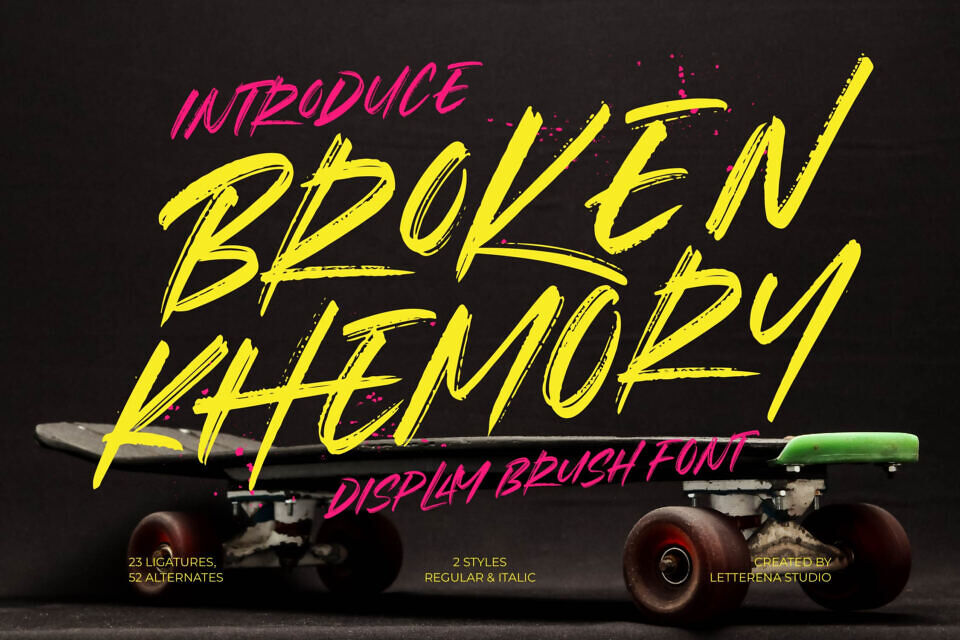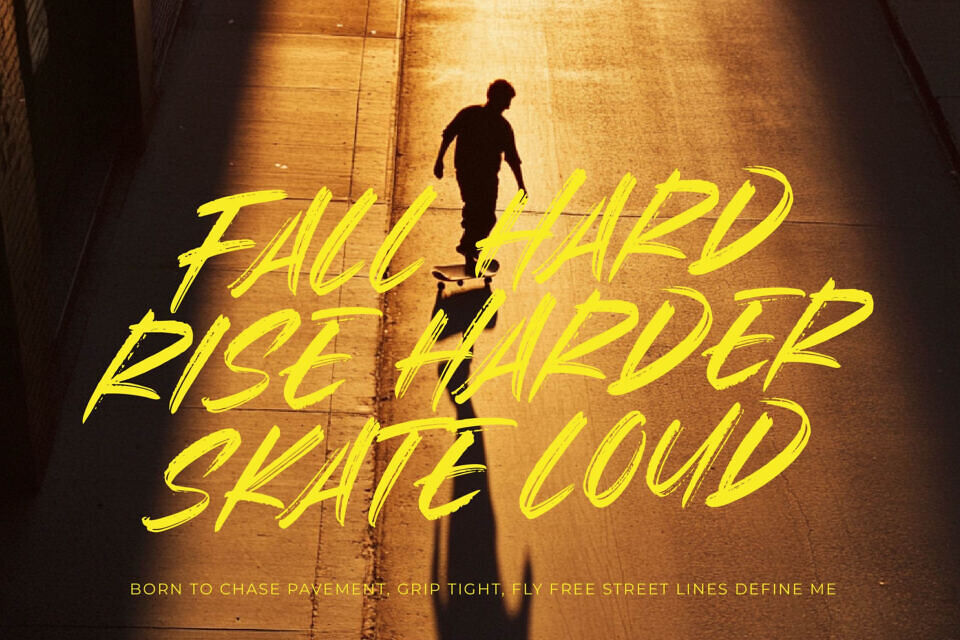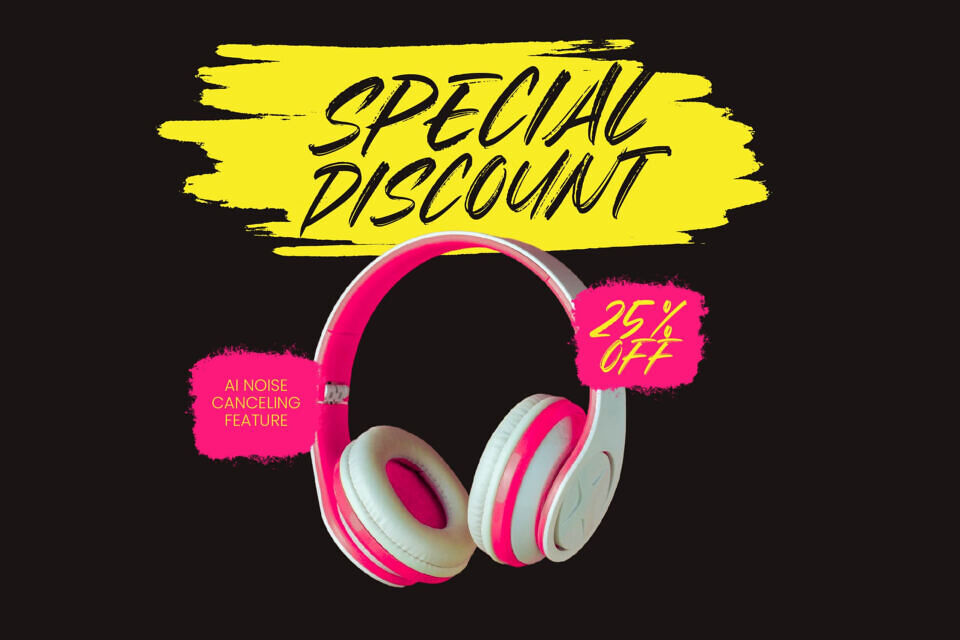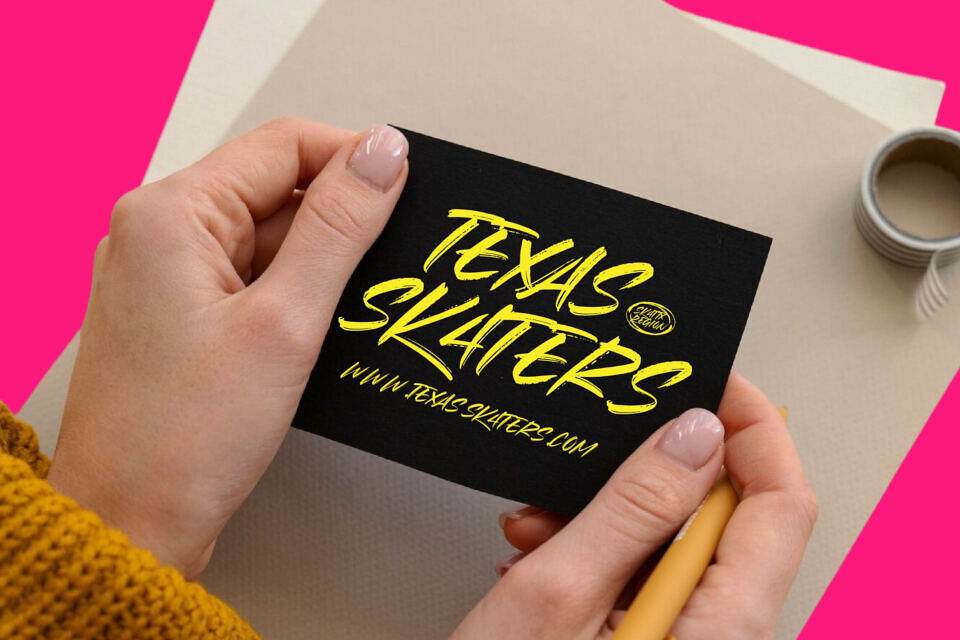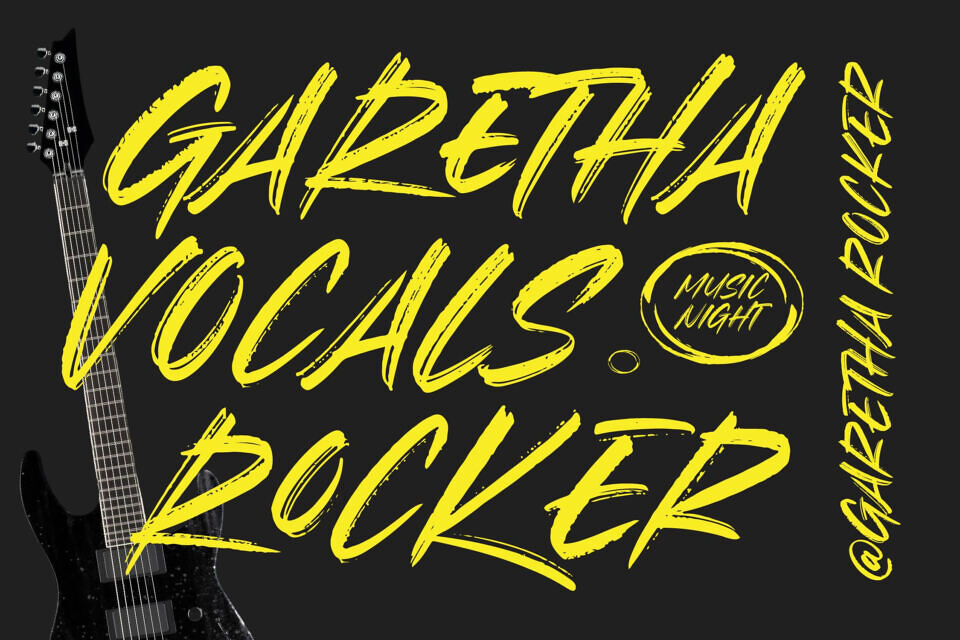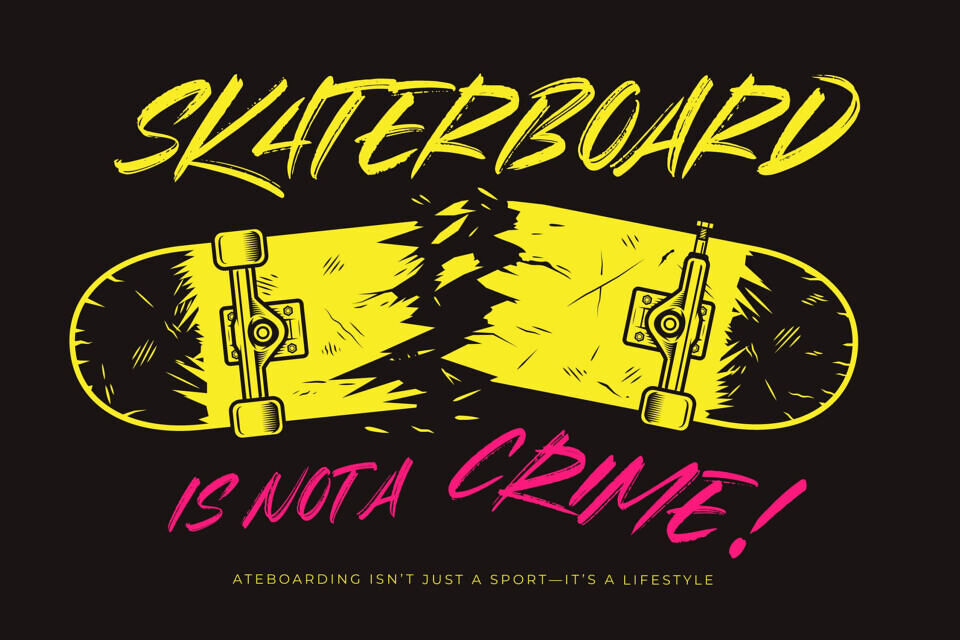
Broken Khemory Font
Infuse your designs with raw energy using Broken Khemory, a cool hand-drawn display font. Its spontaneous, brush-stroke style embodies skate culture and urban rebellion.
With 23 ligatures and 52 alternates, it delivers authentic, hand-rendered complexity. Perfect for high-impact projects, it’s ideal for street fashion, extreme sports, and bold merchandise, commanding attention with its gritty texture and dynamic style.